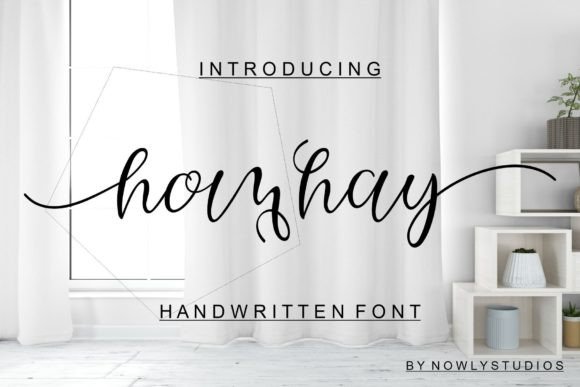
Adorn your designs with the elegant charm and sophistication of our newest font creation — Homhay. This exquisite script font, meticulously crafted by the talented minds at nowlystudios, is a masterpiece tailored to elevate the visual appeal of your modern website.
Homhay, with its flowing lines and intricate details, exudes a sense of playful sophistication. Each letter, hand-drawn with care, dances across the screen with a graceful fluidity that captures attention. Whether you're crafting wedding invitations, designing marketing materials, or simply expressing your creativity, Homhay is the perfect font to add a touch of charm and elegance to your words.
Step into a world of endless creative possibilities with Homhay. This versatile font family effortlessly adapts to your diverse design needs. Its delicate strokes and carefully balanced characters make it the ideal choice for logos, branding, and other design projects. Let Homhay's timeless beauty bring a touch of sophistication to your next creative endeavor.
Dive into the world of Homhay and let your imagination soar. With its ability to effortlessly evoke a sense of joy and warmth, Homhay is perfect for creating designs that resonate with your audience. Whether you're designing a personal blog, a social media post, or even a heartfelt letter, Homhay will add a touch of whimsy and charm that captivates hearts.
Unlock the full potential of your design vision with Homhay. Its seamless integration with modern website design principles ensures effortless implementation. Let Homhay's graceful presence enhance the user experience, creating a visually appealing and engaging online environment that reflects your brand's unique personality and style.
Embrace the beauty of Homhay and elevate your designs to new heights. With its versatility, charm, and effortless elegance, Homhay is the perfect font for creating modern websites that leave a lasting impression. Download Homhay today and embark on a journey of creative exploration, where every design tells a unique story.